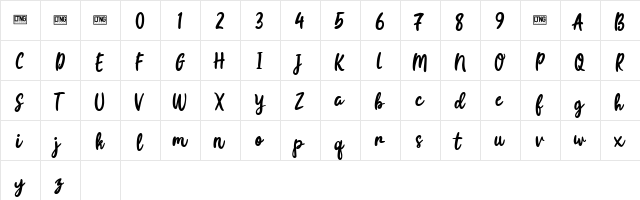
Joyfulness Script free personal Regular
Joyfulness Script free personal flows with the natural rhythm of handwritten lettering, making it ideal for designs that call for warmth and personal expression.
Font Pairing: Combine Joyfulness Script free personal with a simple geometric sans for maximum contrast — the tension between flowing curves and clean structure is a classic typographic pairing.
Pro Tip: Pair Joyfulness Script free personal with a clean sans-serif for supporting text. The contrast between fluid script and geometric structure creates an elegant typographic hierarchy.